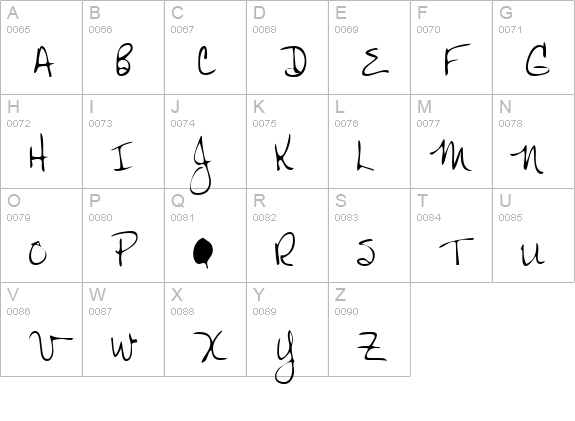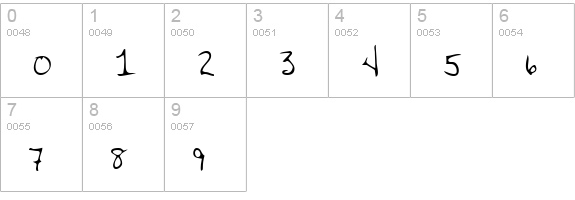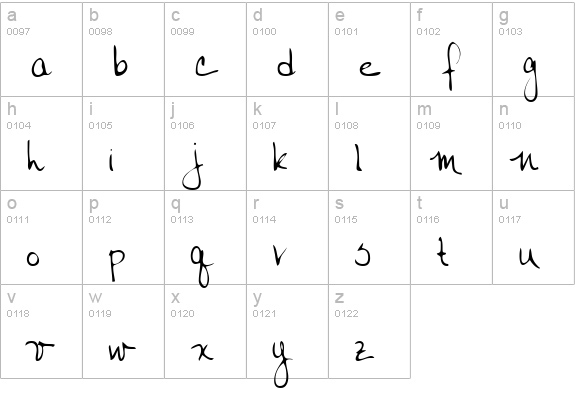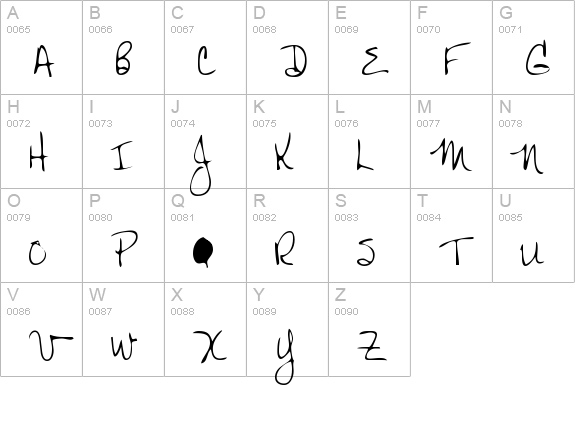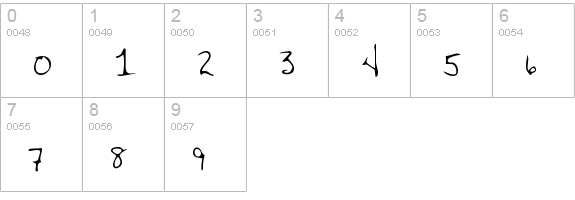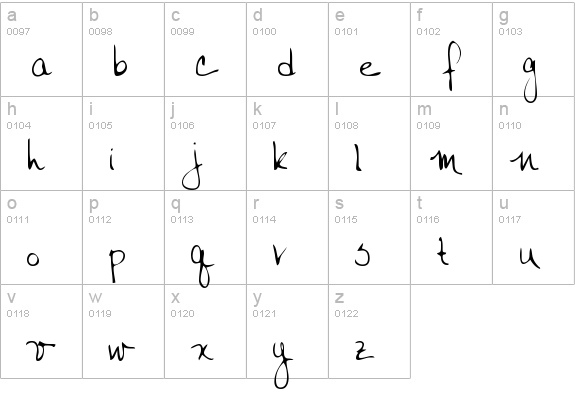
CattsHand Regular is the standard, neutral variant in the CattsHand typeface family \xE2\x80\x94 well suited to general body text, paragraphs, and standard typographic work.
CattsHand Regular is a charming and versatile font that exudes a sense of elegance and creativity. With its smooth lines and playful curves, this font is perfect for adding a touch of personality to your designs. Whether you're working on a project for print or web, CattsHand Regular is sure to make a statement. Best of all, CattsHand Regular is available for free download at FontsMarket.com. This means you can access this beautiful font without having to spend a penny. So why wait? Add CattsHand Regular to your font collection today and elevate your designs with its unique charm and style.